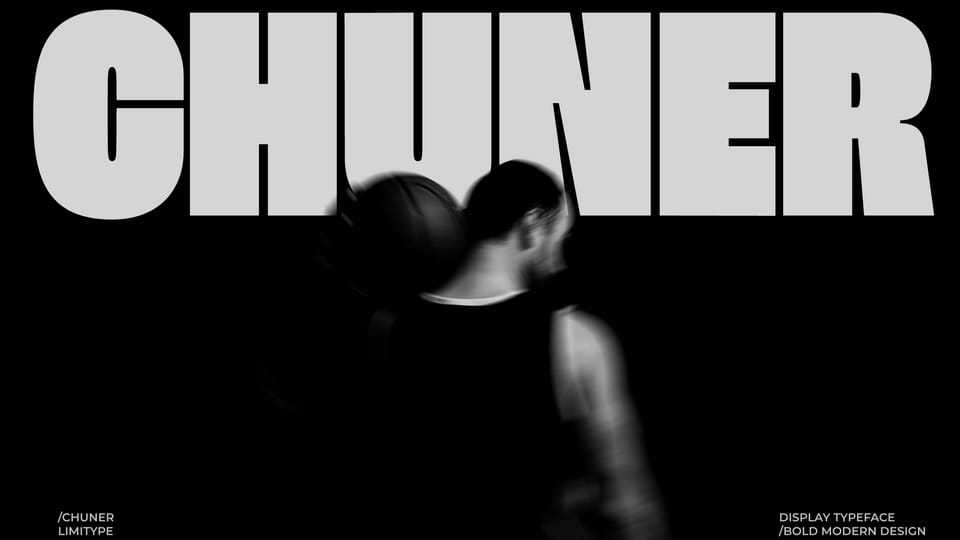
Download Chuner font, a bold display typeface with a sporty style designed to create a strong, dynamic, and energetic visual appearance with its firm and modern character.